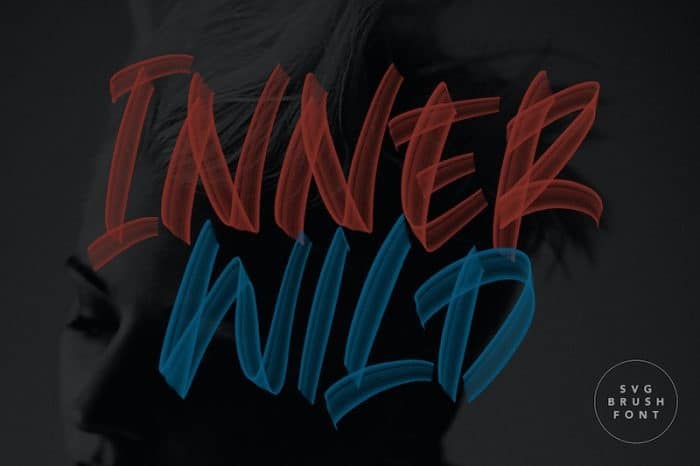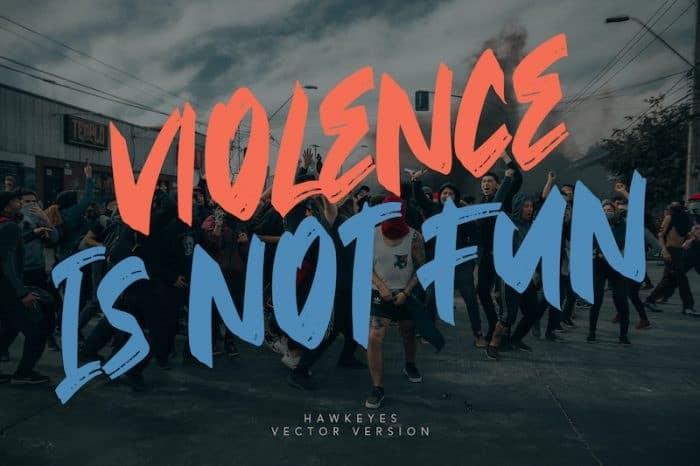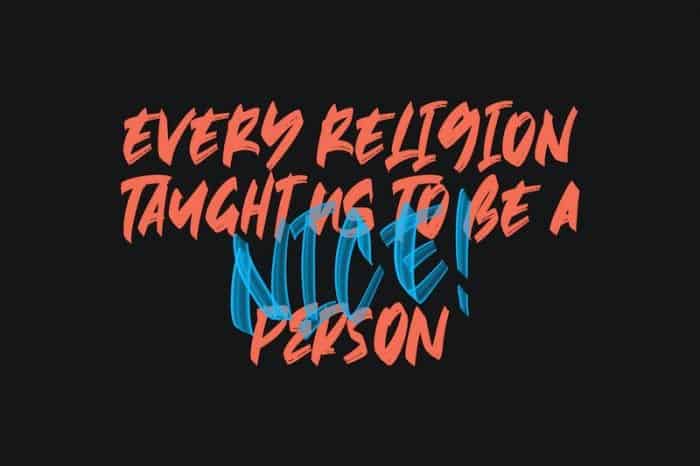
Hawkeyes Brush Font is a cute and amazing script font. Give your designs an authentic brush handcrafted feel. Made from font designer named Maulana Creative. Hawkeyes is perfectly suited to signature, stationery, logo, typography quotes, magazine or book cover, website header, flyer, clothing, branding, packaging design and more.